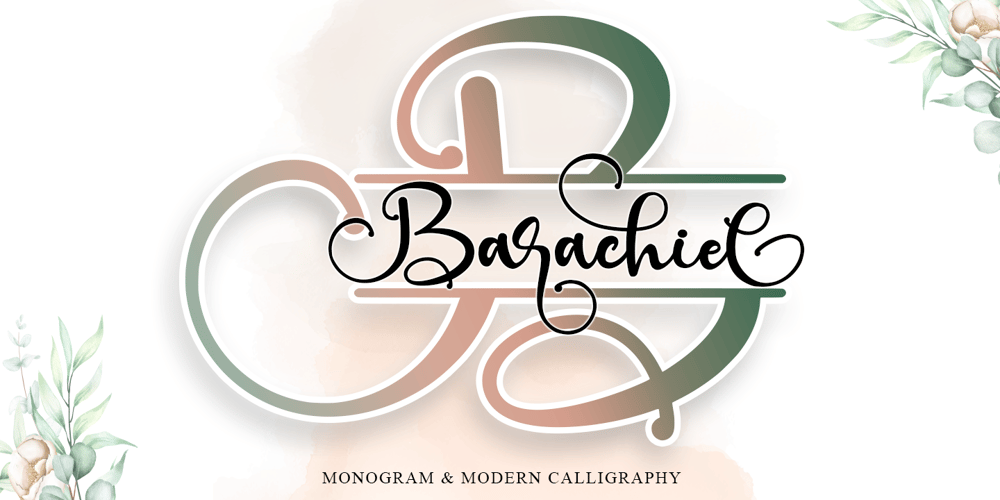
Barachiel Alternate
Barachiel Alternate font
Barachiel Alternate Font Family was designed by Stefani Tri Rosa Setiati Christiana and published by Stefani Letter. Barachiel Alternate contains 5 styles and family package options. Barachiel is a beautiful script and Monogram font designed with an incredibly modern feel. Whether you’re looking for fonts for Instagram or calligraphy scripts for DIY projects, Still Love will turn any creative idea into a true piece of art! This font is PUA encoded which means you can access all of the glyphs and swashes with ease! It features a varying baseline, gorgeous glyphs, and stunning alternates.